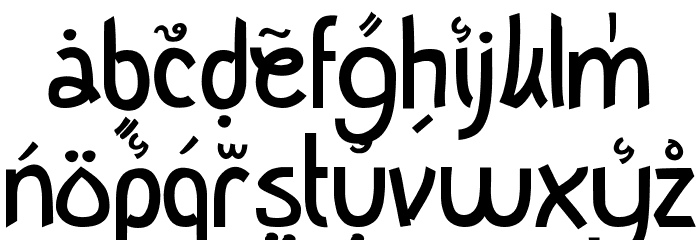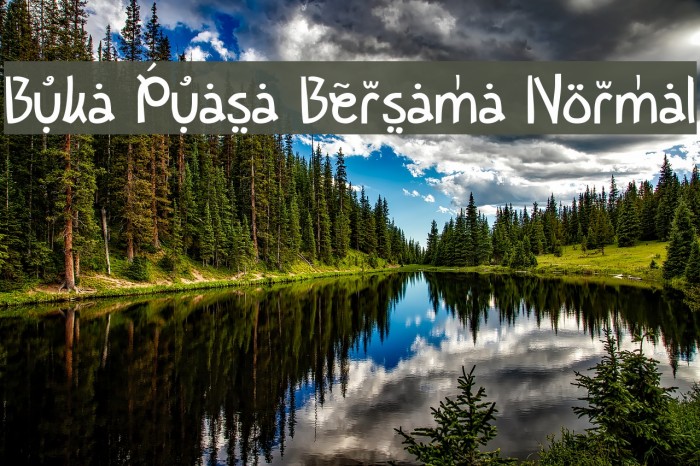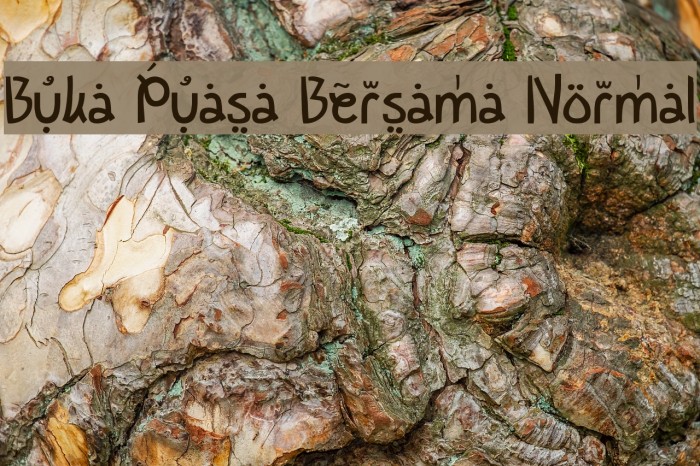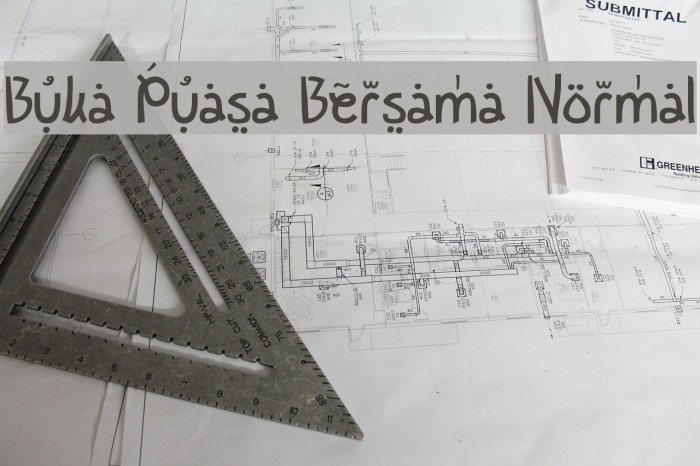
Buka Puasa Bersama Normal Font
This font features a unique and playful design with a touch of whimsy, characterized by its distinctively curved and slightly exaggerated letterforms. The uppercase letters exhibit a bold presence with a slight slant, while the lowercase letters maintain a consistent style, adding a sense of cohesion. The inclusion of diacritical marks and special characters enhances its versatility, making it suitable for a variety of languages. The numerals are well-proportioned and align seamlessly with the overall aesthetic. The font's playful nature is further emphasized by its decorative elements, which add a sense of movement and energy to the text.
A whimsical and playful font with bold, curved letterforms and decorative elements.
- Proposed Projects: Ideal for children's books, playful branding, creative posters, and event invitations.
- Overall Style: Playful, Decorative